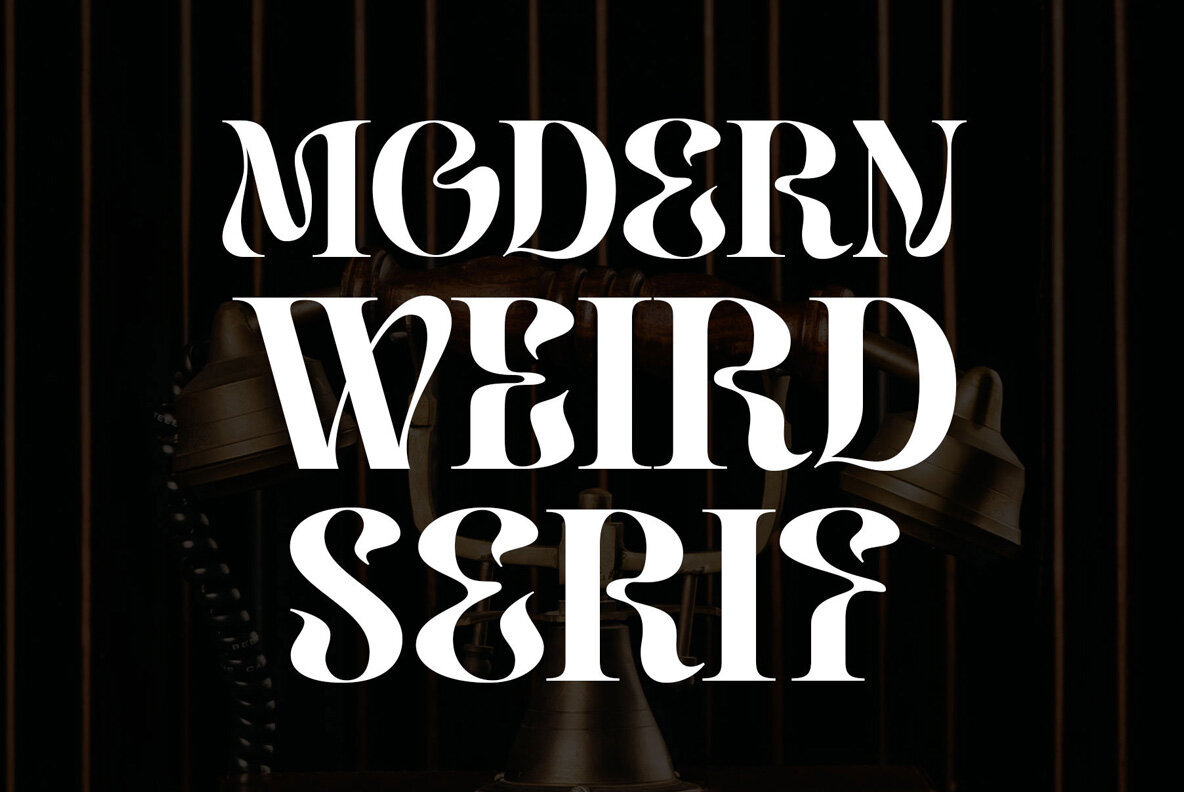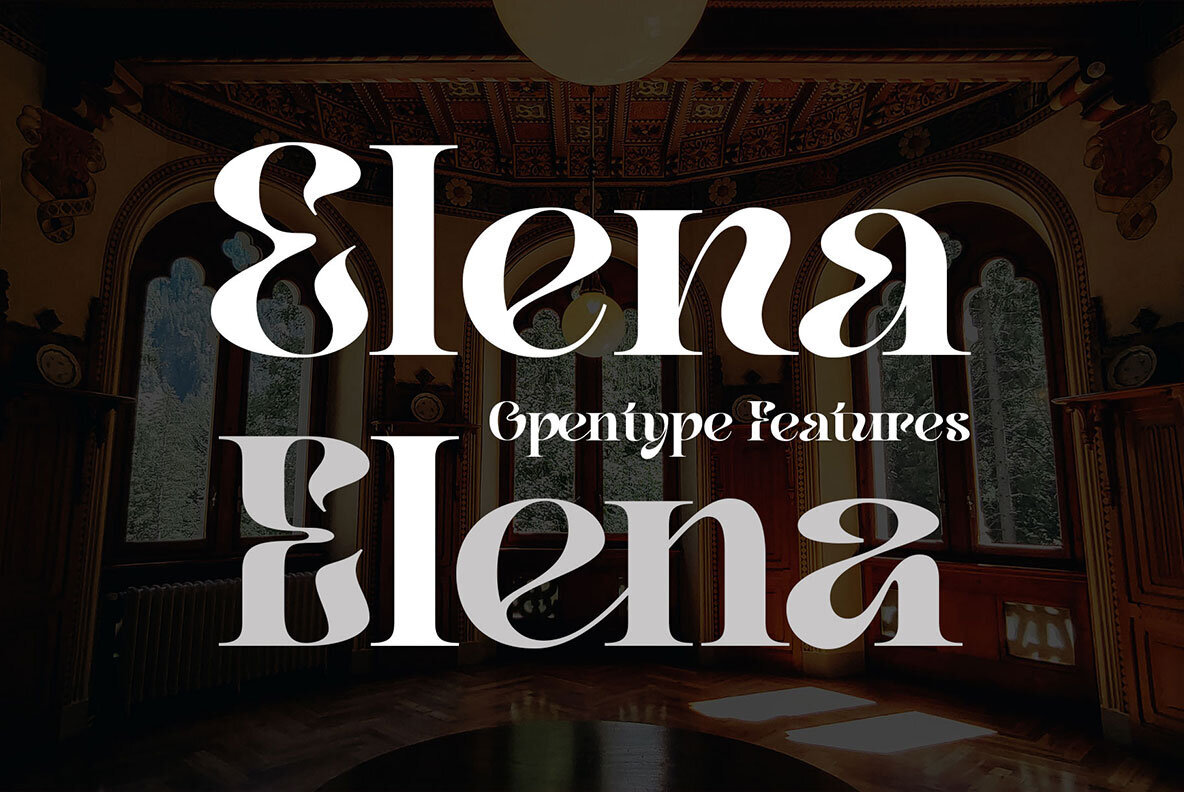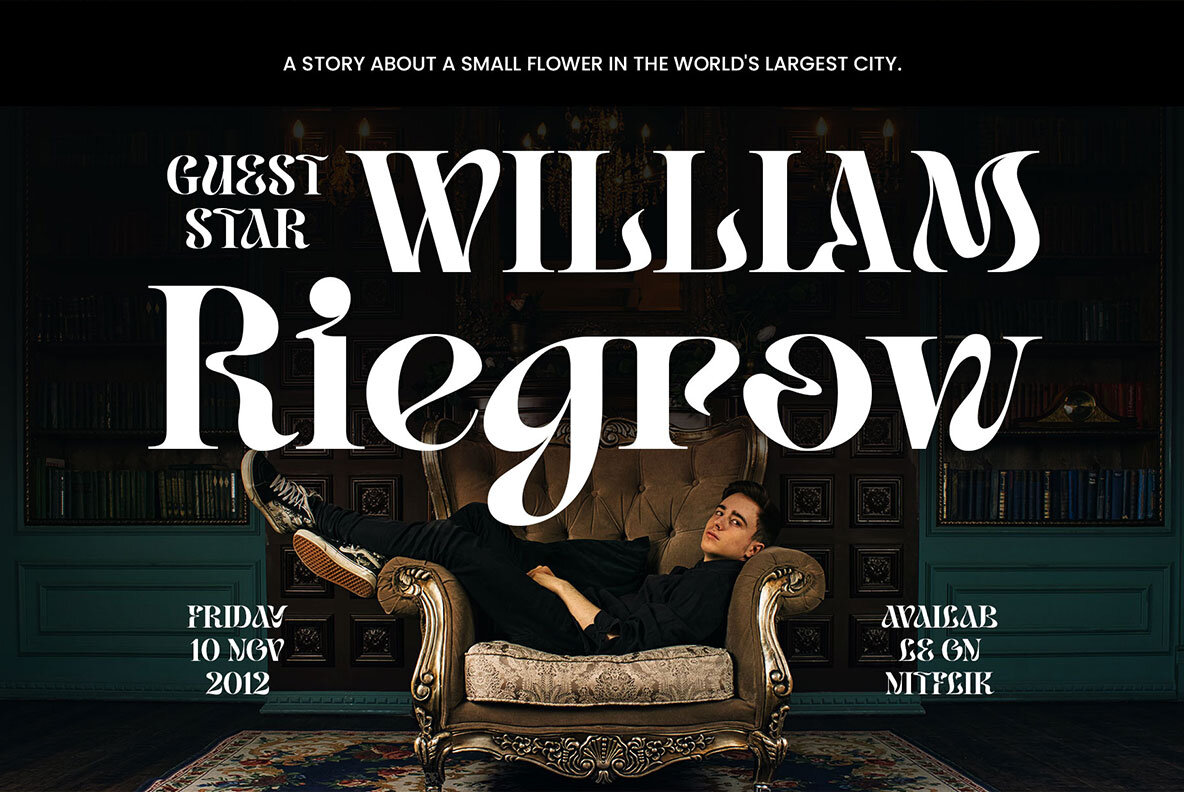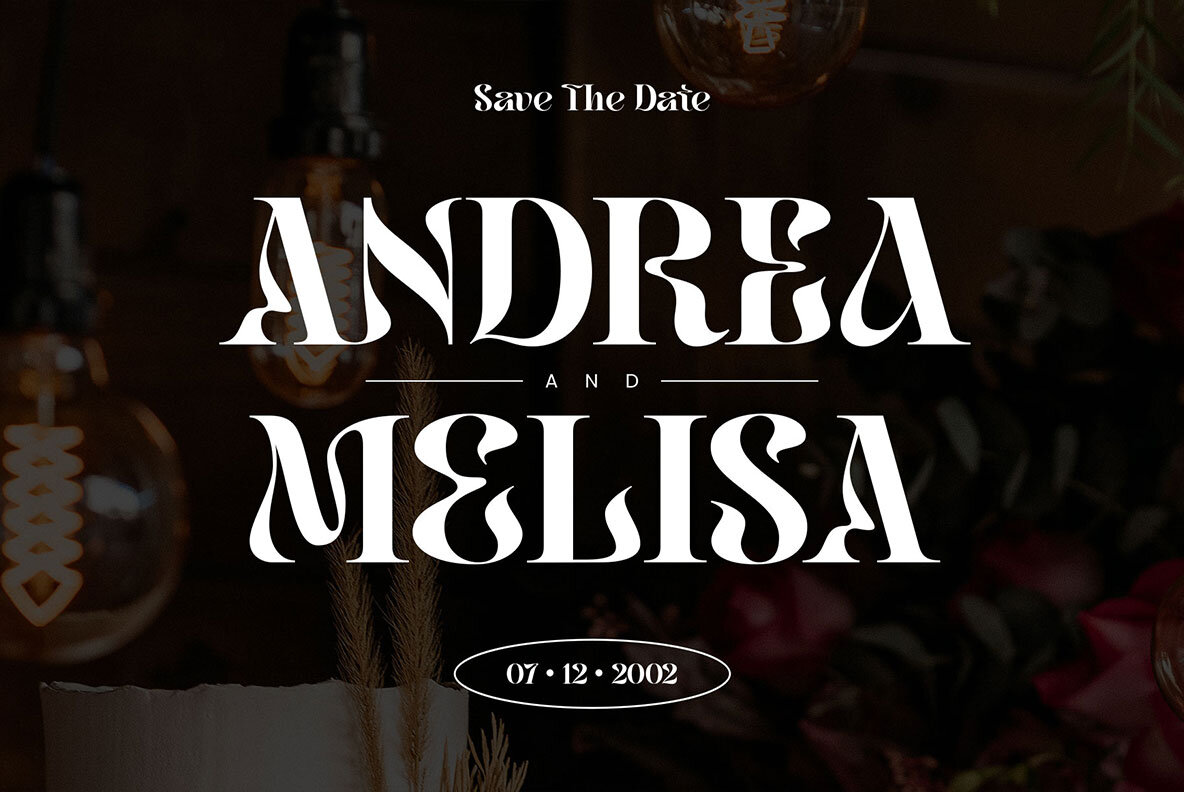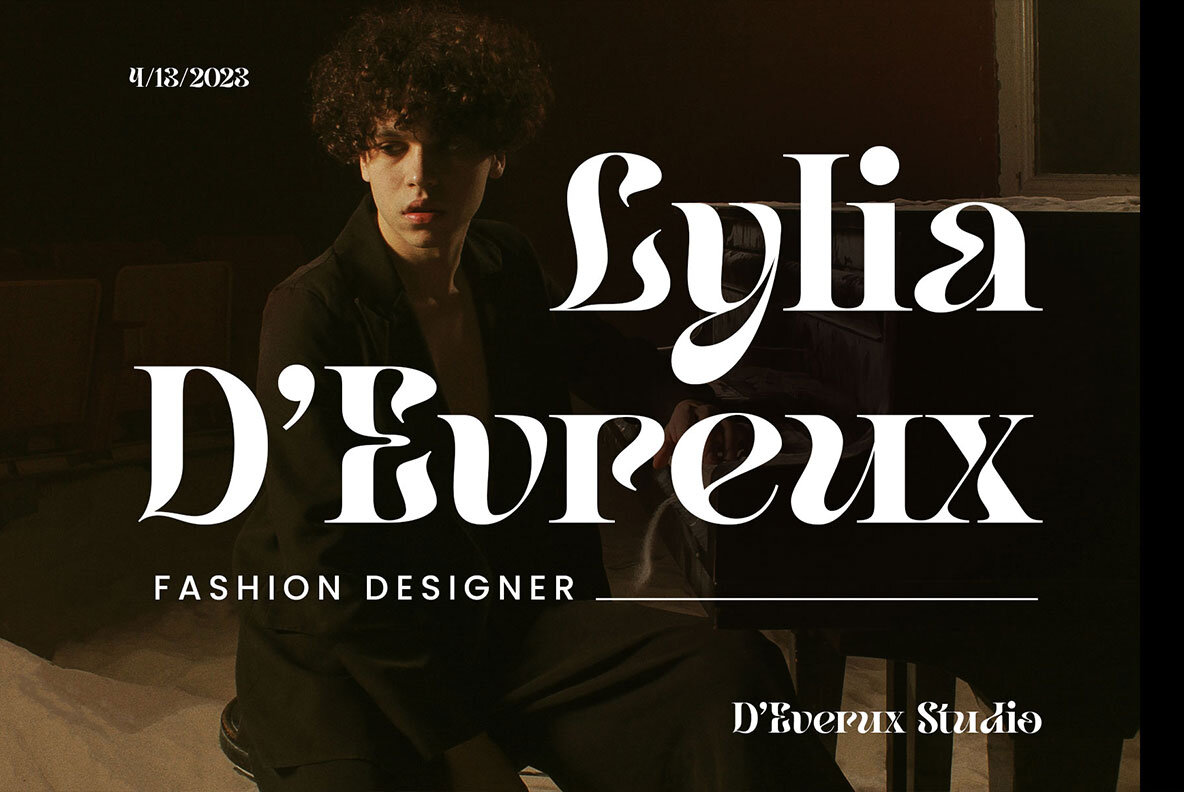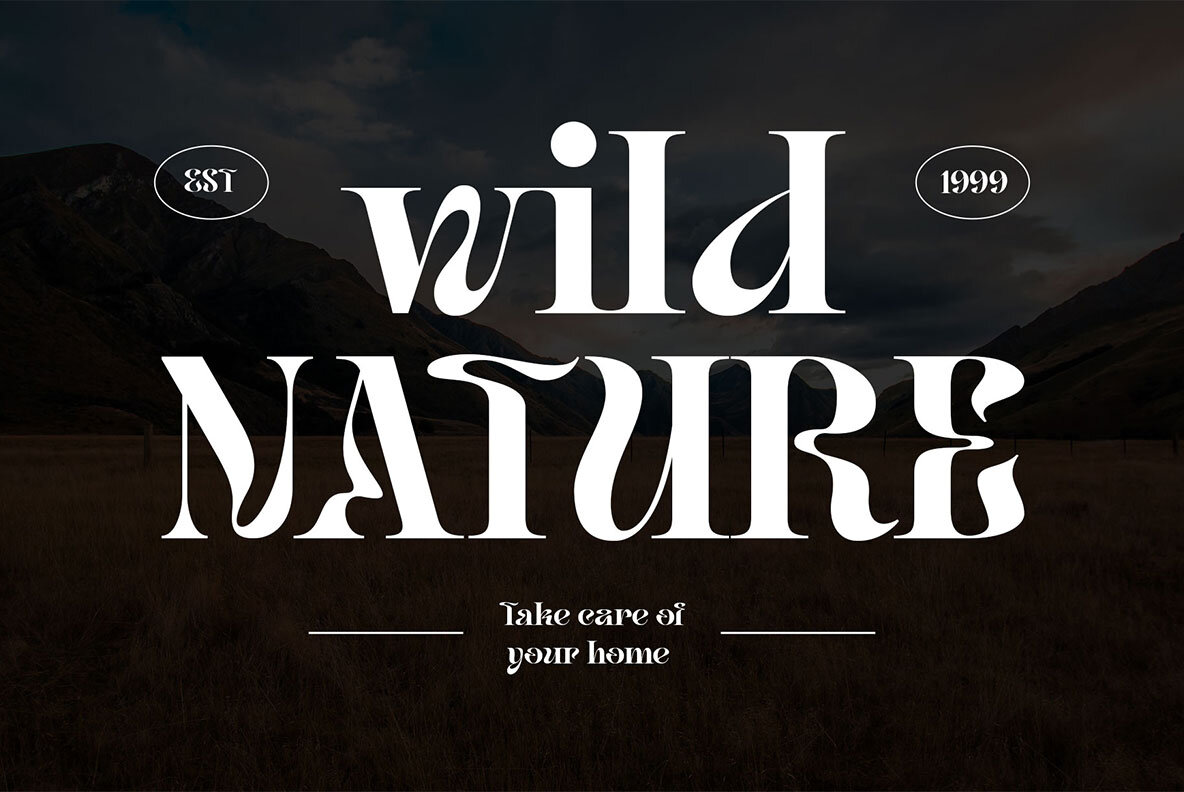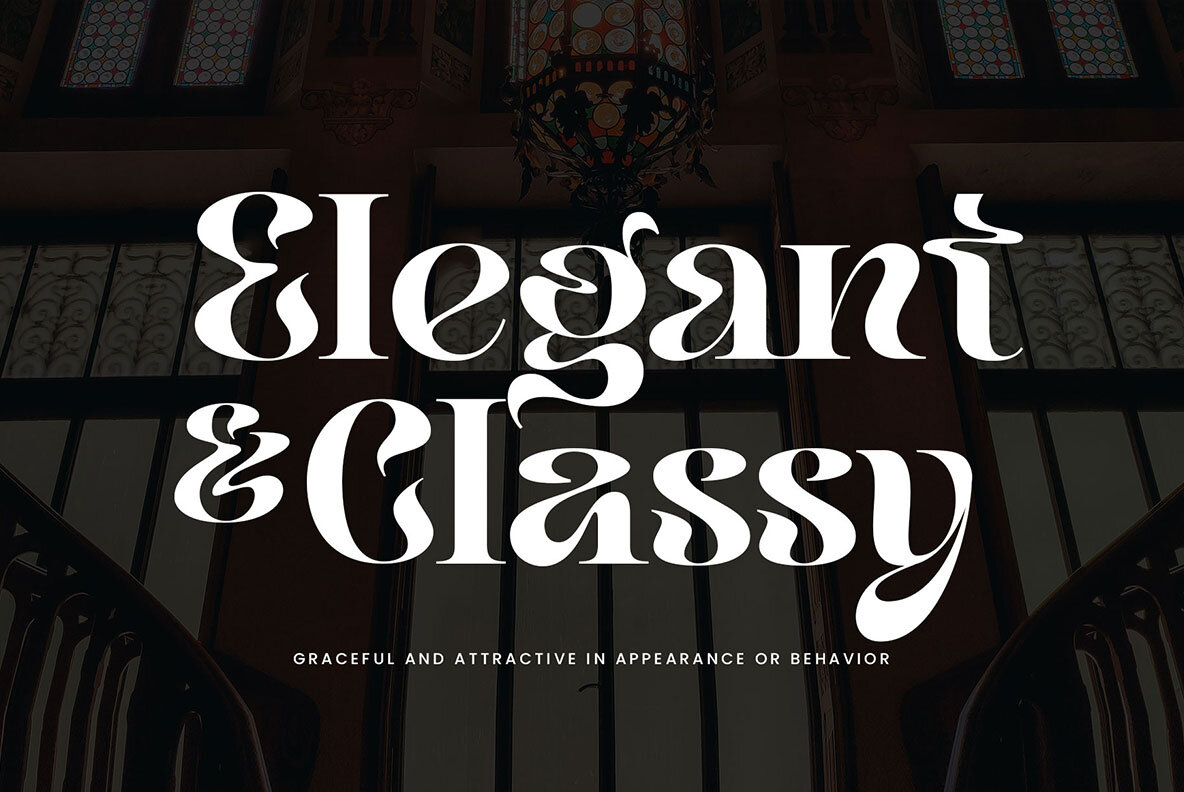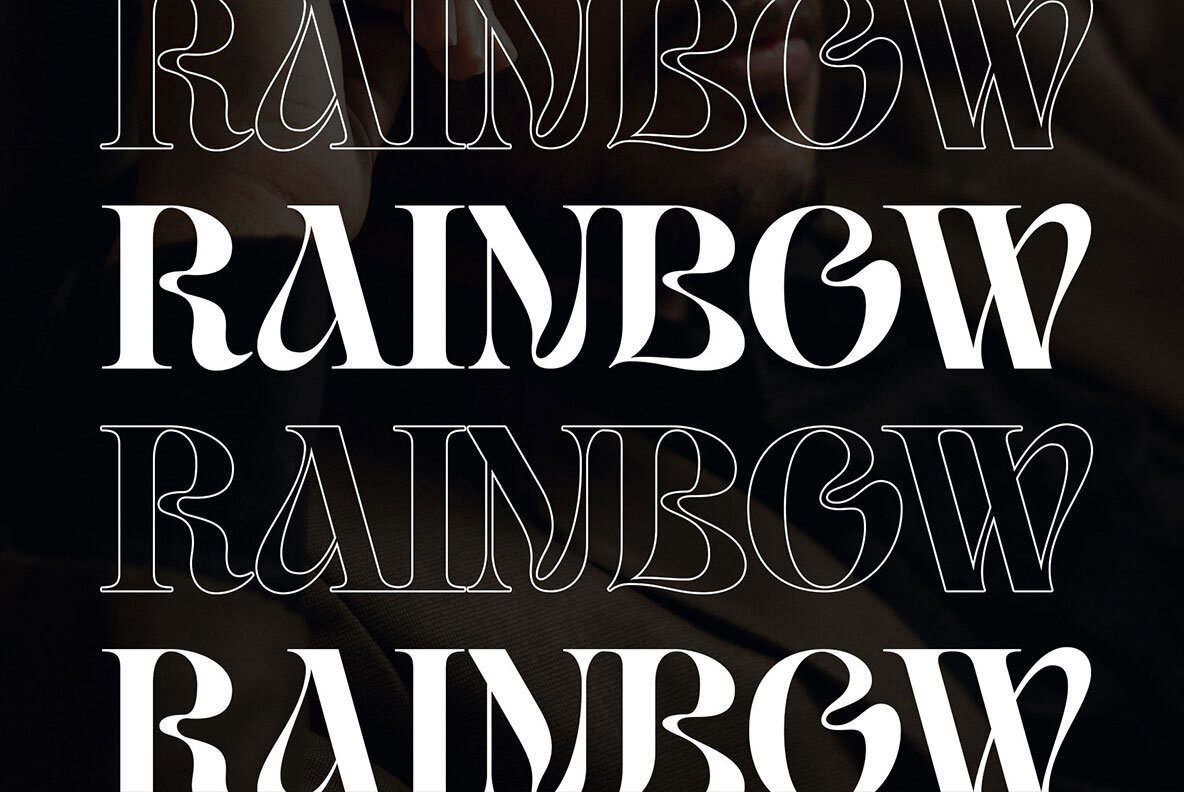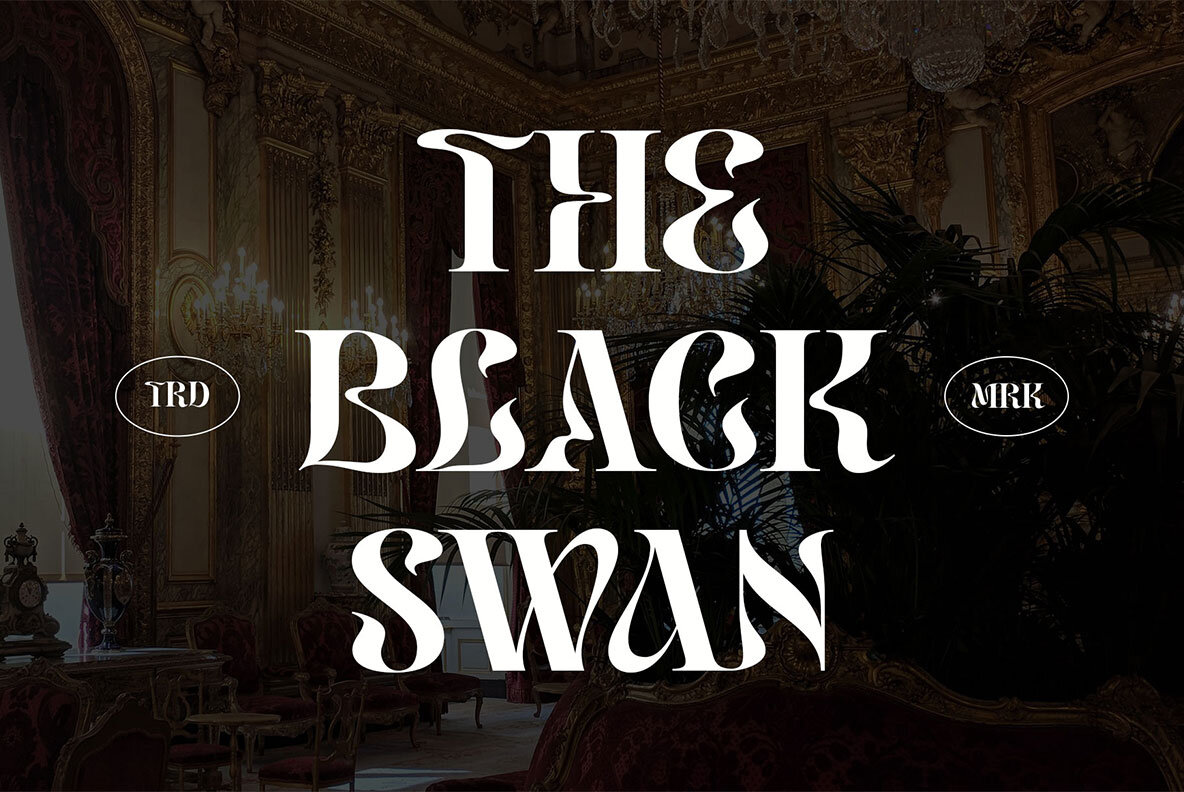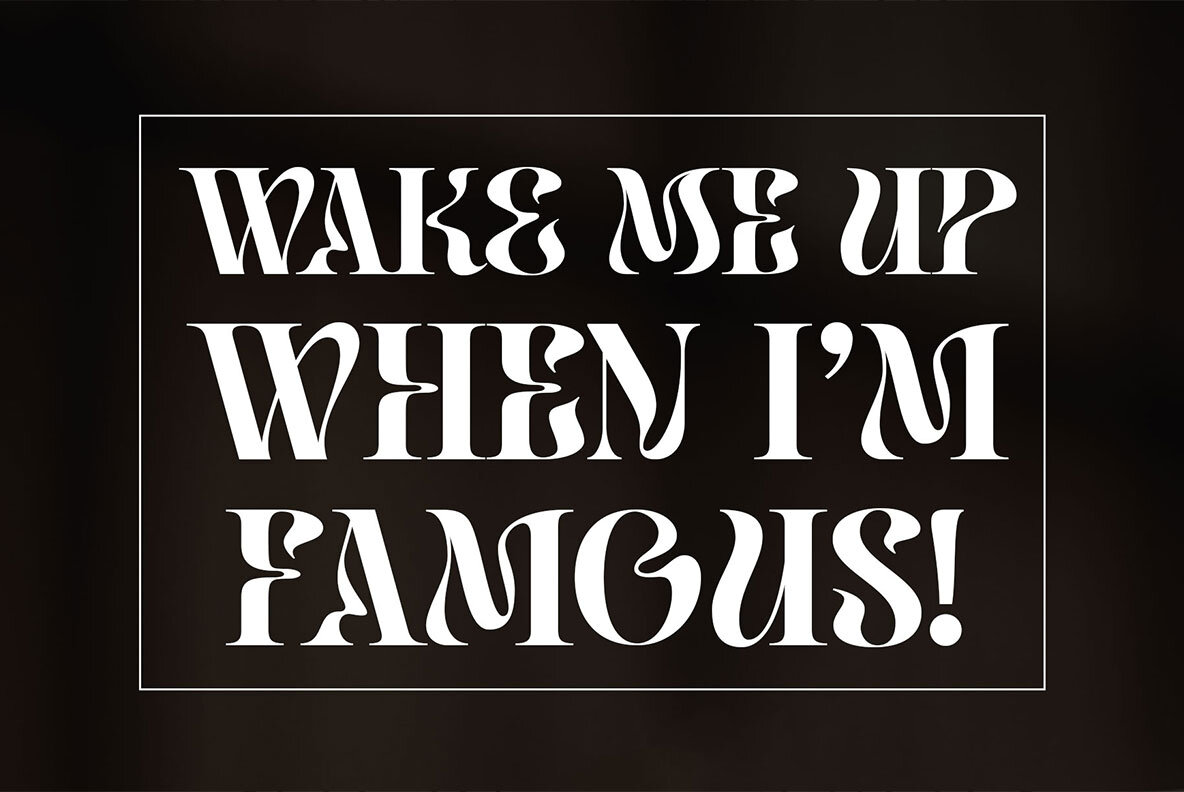
Yavome Font
Yavome, a delightfully eccentric serif font, showcases modern experimental shapes that dare to defy convention. With its high contrast and artistic curves, Yavome delivers a sense of dynamic energy and graceful movement, further enhanced by the inclusion of special characters. Drawing inspiration from the rich heritage of medieval typography, Yavome has been meticulously refined into an elegant and unique form. Its distinct character makes it an ideal choice for display, branding, logos, and quotes. Whether you're designing flyers, posters, stories, invitations, t-shirts, or stickers, Yavome's versatility breathes life into your creations. The Yavome font package includes uppercase and lowercase letters, numbers, punctuation, symbols, stylistic alternates, lowercase ligatures, and accented characters. Embrace the charm of Yavome and allow your designs to shine with an unparalleled touch of sophistication and whimsy.